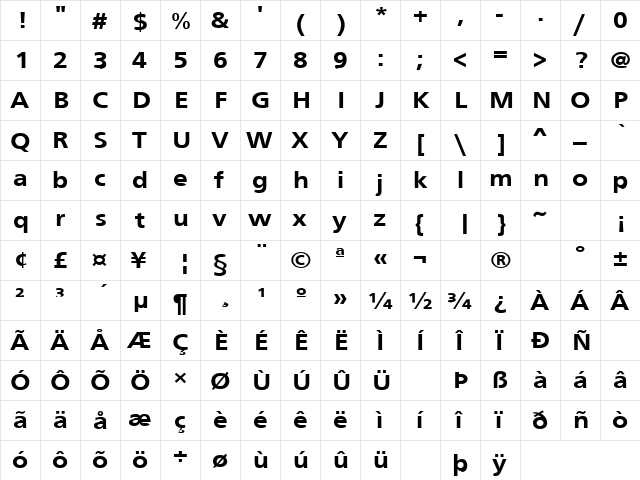
Four Sticks 13 Regular
Design Context for Four Sticks 13 Typeface
Four Sticks 13 takes a measured approach to typography — its balanced proportions and neutral character make it a reliable workhorse for both digital and print work.